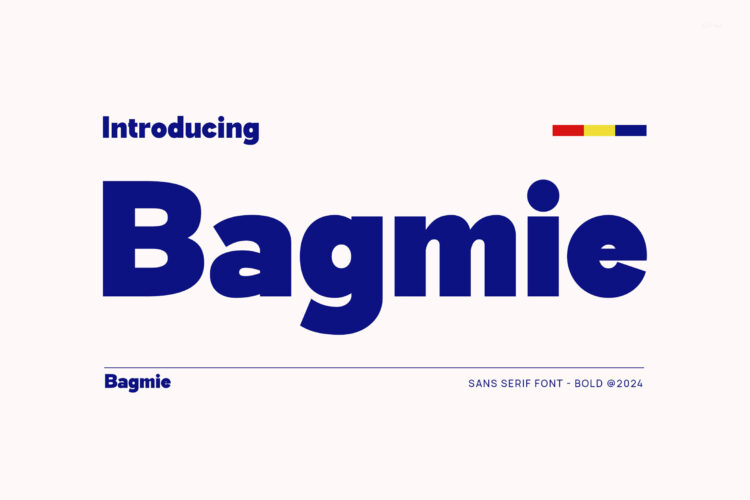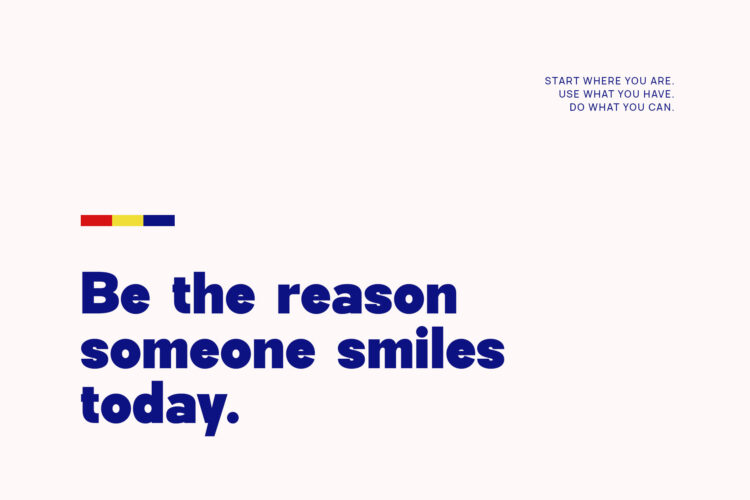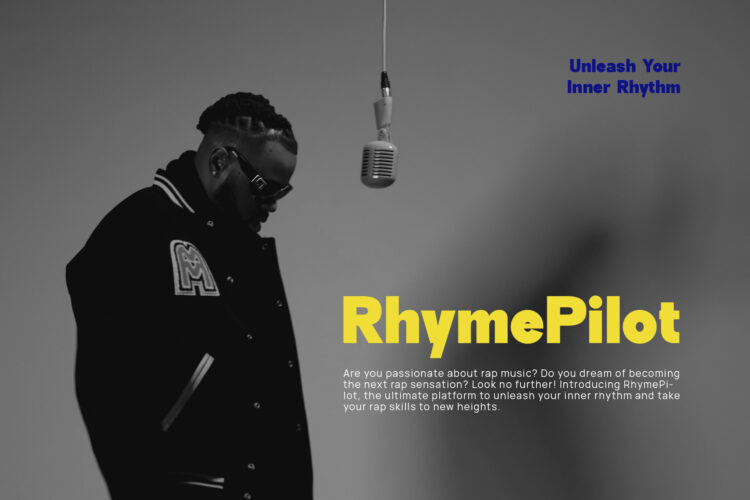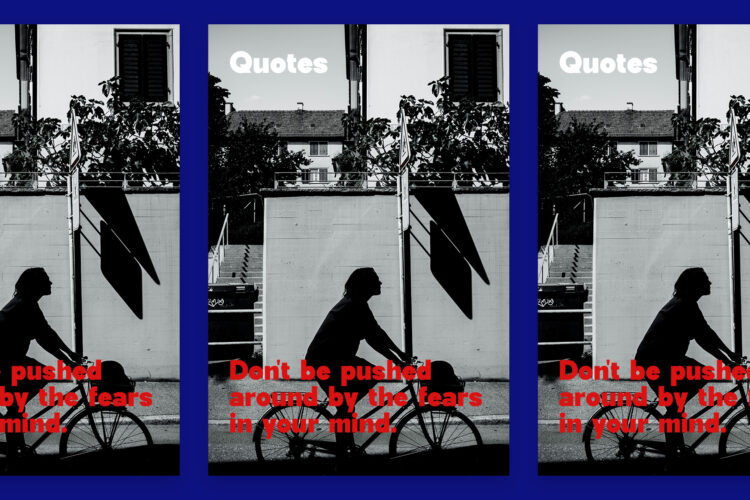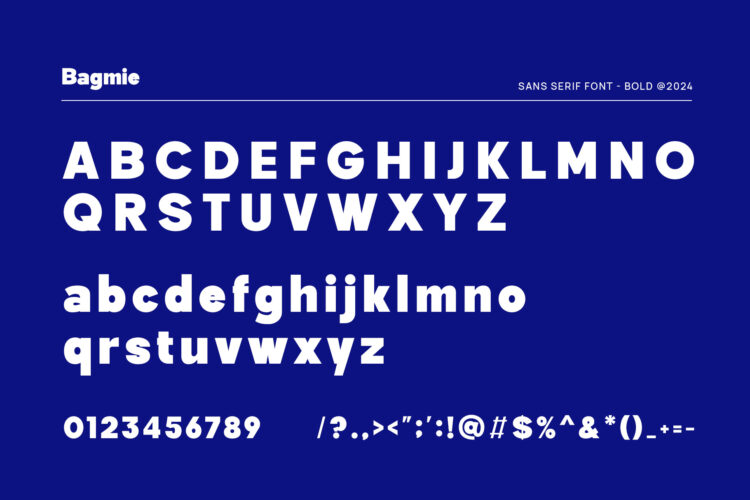
Introducing our new Bagmie, modern sans serif font with elegant style this is perfect for branding, logos, invitation, magazines, product packaging and more.
Bagmie – Modern Sans Serif Font